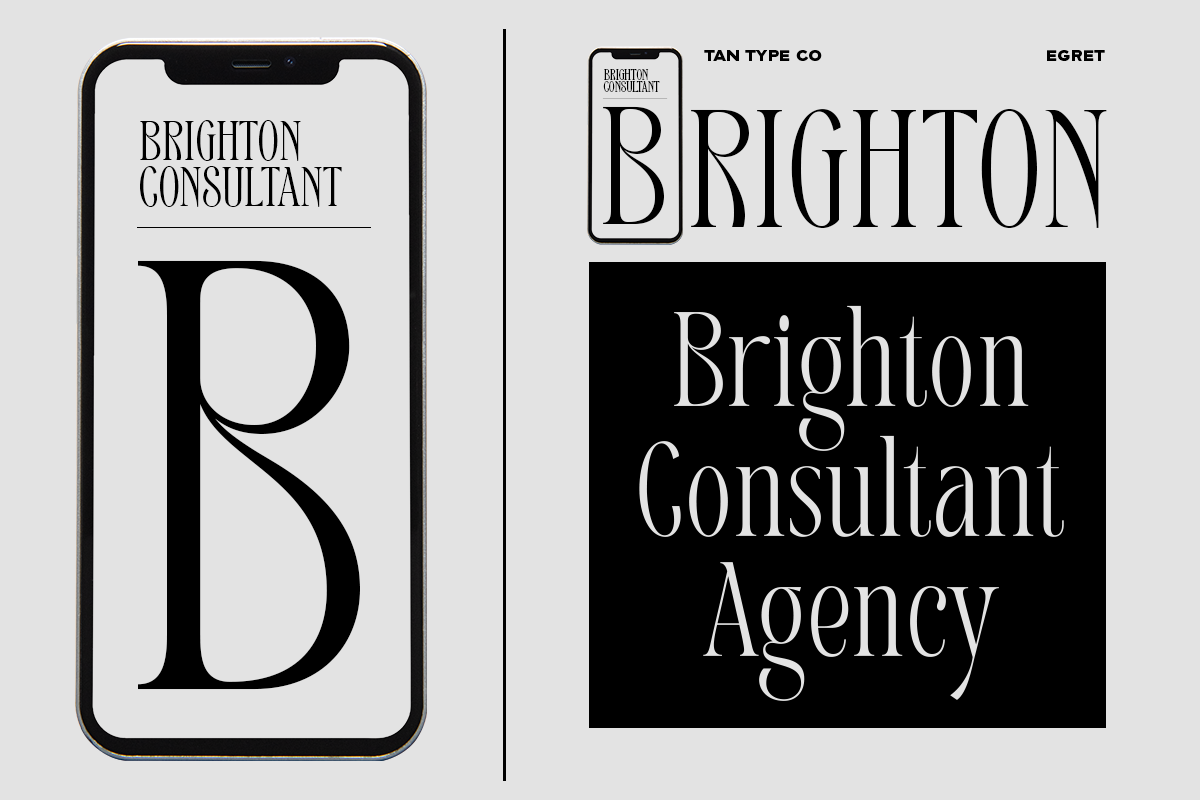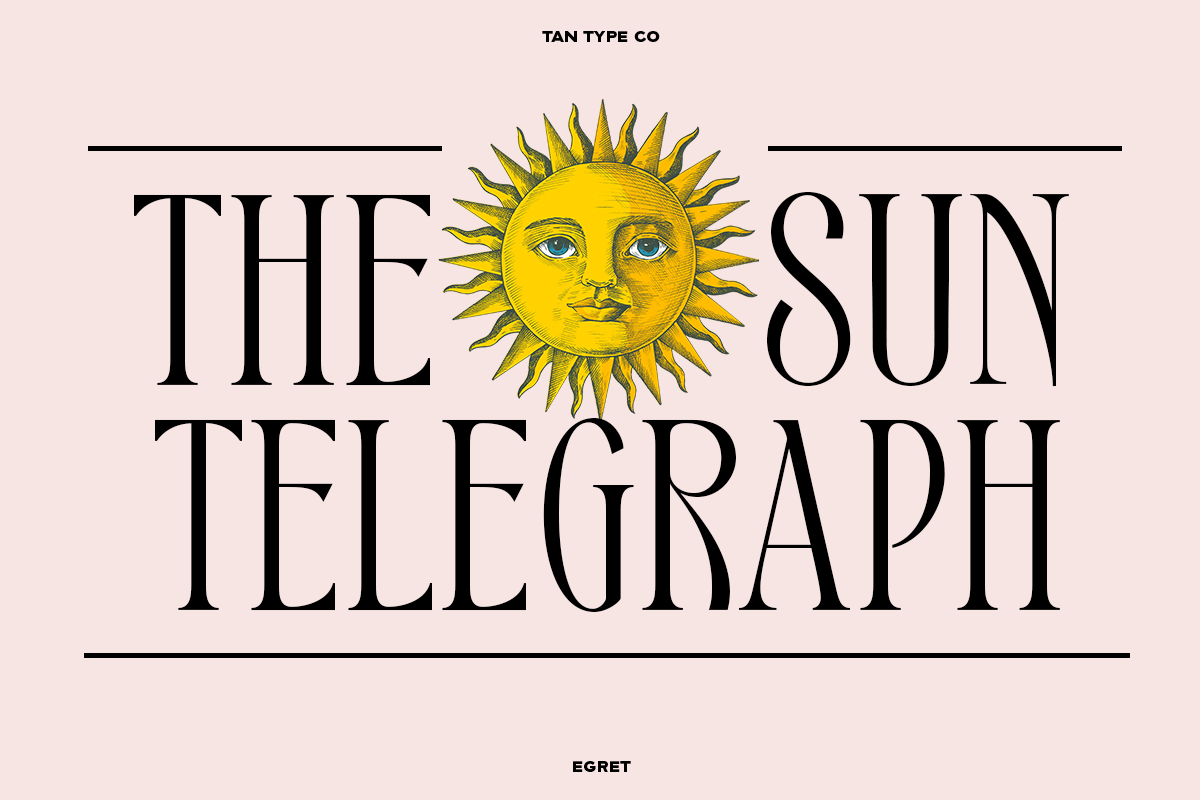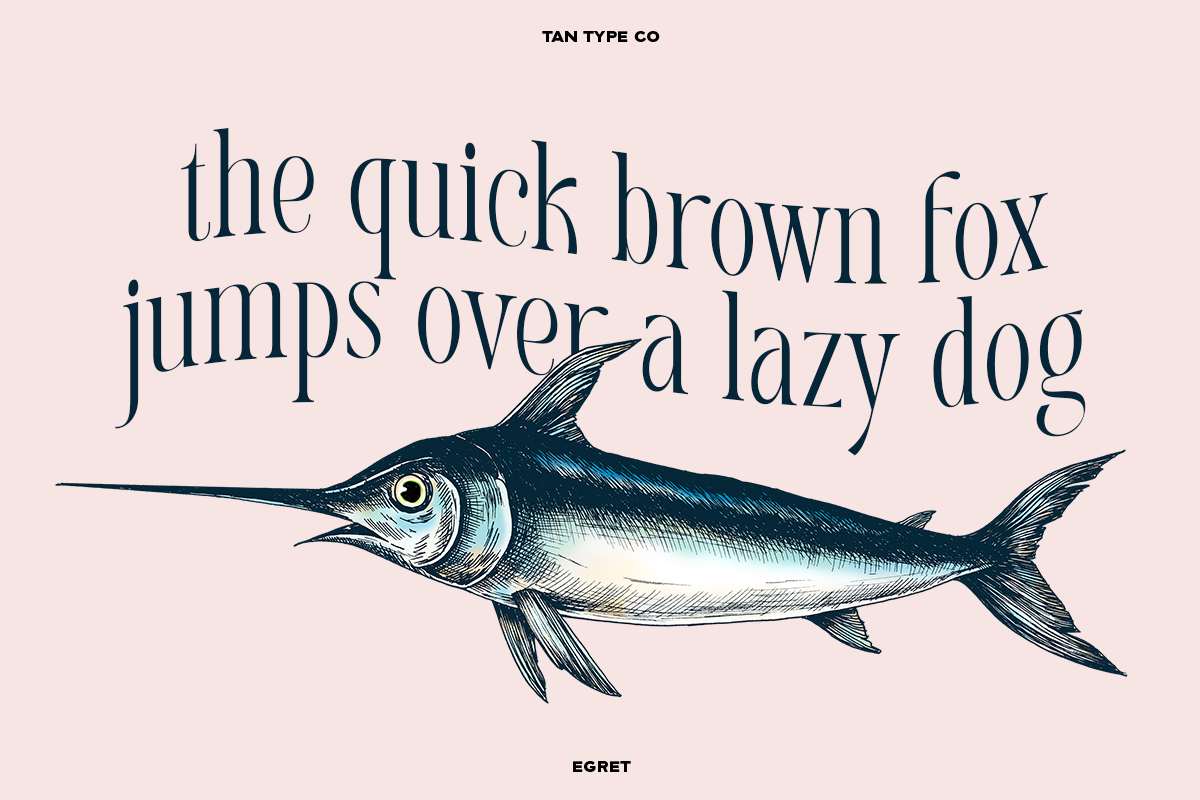
TAN – EGRET is an elegant display font with a classic twist, suitable for a wide array of design applications! Create beautiful wedding invitations, magazines, books, packaging designs, websites, mobile applications, logos, and much more.